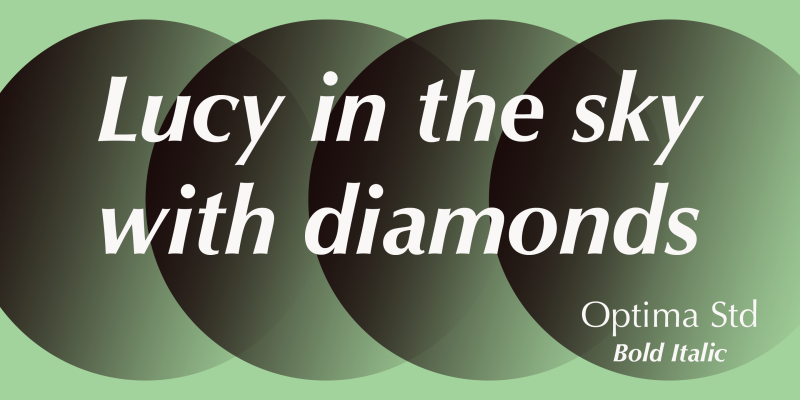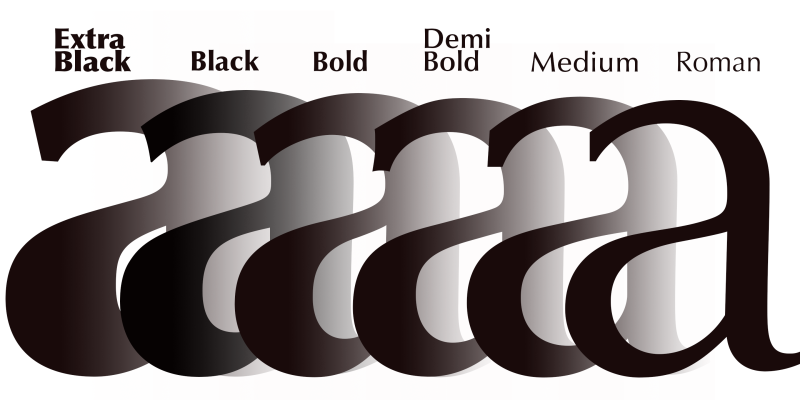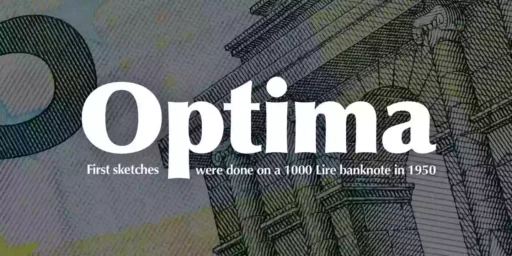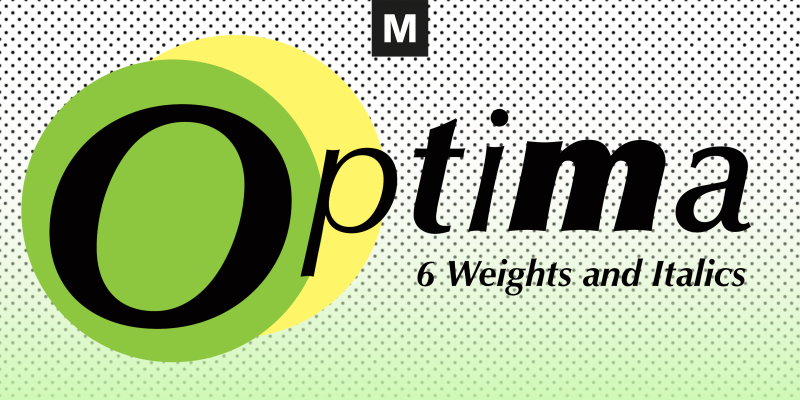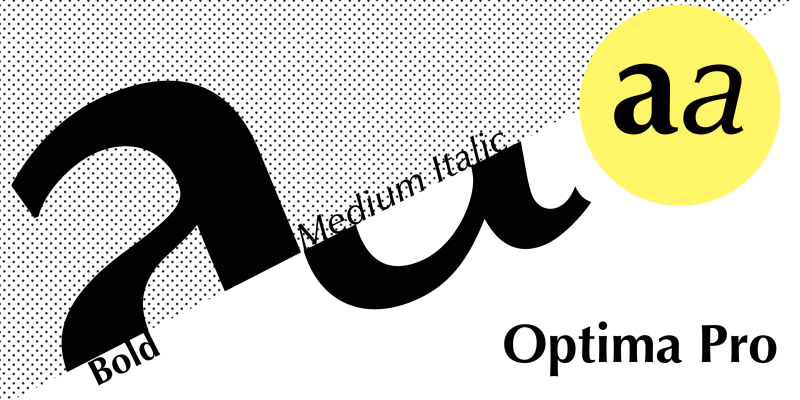
Optima Font
Optima, designed by Hermann Zapf, a German type designer. In 1958, Zapf created Optima font due to his ambition to combine the legible serif fonts with the modern sans-serif types. Zapf integrated Renaissance calligraphic features with modern minimalist sensibilities to create a typeface expressing classicism and ever-lastingness.
The Zapf approach, as exemplified in Optima, transcends typography. The design must be functional and able to catch the attention of the subconscious mind. He aimed for something that could be read while at the same time giving the viewer a thrilling and insightful experience. Zapf conceived the Oppam (Optima) typeface because he was a powerhouse of details and creative design.
The first reaction from Optima to the typography community was flaring a fire at the start. In the opinion of many letterers, it became a milestone in the history of font design. Optima is an irreproachable brand in its aesthetics by combining traditional and modern designs. The fact that it easily integrates niche and mainstream design leaves nothing more to be desired. It could currently be used in branding, editorial, signage, and digital interface design.
The tireless typeface designer Hermann Zapf remains widely known as one of the best typographers of modern times. By all means, science agreed with the scientist’s role and continuous contribution, but the Optima typeface will always remain the actual event. This brings out the greatness and unique qualities of the scientist involved.
In the late 1950s, he combined elegance with classical Roman lettering and readability to set a new trend in modern typography. Zapf was very much involved with Renaissance calligraphy, but here, he concentrated on grace and symmetry as the main criteria for designing typography. The last of his attempts at typeface creation finally culminated in Optima, with a unique and timeless design. By forming each letter as a whole to convey his artistic creativity while still maintaining readability, Zapf satisfied himself during the different stages of the process.
Optimization has never been that much of a breeze. Therefore, it is a sign of its importance. Of course, Helvetica and its fellow sans serif styles were the most prevalent at that time, but among them Optima was the most astounding exception. This work of Zapf is an outright denial of a misguided belief that these two things can not be together. The fact that Opimta is still having profit only shows that his thoughts are everlasting.
It uses serifs and non-serifs, creating a novel and distinctive font among its typographic objects. In Visual & Letter Terms, fonts automatically have the attitude and dramatic effect when they use stroke to contrast between the thick areas and thinner parts. Thick and thin lines together accomplished diversity while maintaining harmony and exciting appearances. In this way, it expressed comfort and nobility to the brand Optima.
Another part of the Optima letterforms are dynamic curves with beautiful, endlessly repeated line segments that create letter shapes, adding strength to the typeface. Zapf’s laborious minute-to-minute diligence is like a mantra: perhaps it can convey the breezy holding of a hand or the quickening of hearts through the same strokes but this might also result in the creation of artistic and ideal world. It creates typography’s precision of use in various ways comma the only one means Optima is special a real ode to typography.
Women value the convenience of choosing from ready-to-wear garments that look good immediately without any extra effort. Because it has the same qualities, the font looks equally readable regardless of the size of the display or text. Optima is a professional company guaranteeing that any subject, whether it is a headline, white space, subheadings, or text, is always cheerful and unique.
One significant factor that keeps customers coming back to us is our flexibility. The adaptability of this particular font, without being confined to the specific design context or application, has made it a sign post of the typographic world at large.
For printed matter, Optima has become a choice for leading-edge publications, corporate branding, and high-end editorial design. The architecture that makes its apps is user-friendly, flawless, and elegant, and it is very suitable for luxury goods, fine arts, and premium content representations. It is so Easy to read and legible that Optima is highly preferred for body text in books, magazines, and carbon materials.
Contrary to the spread of digital media, Optima has not lost its ground. It is also worth noting that the font is inherently built to meet the digital era, how the characters are rendered perfectly, irrespective of gadget or platform. Optima’s versatility comes into play as it effortlessly dovetails various tasks in the field of digital development including website development, user interface design and mobile application development.
What is Optima Font good for?